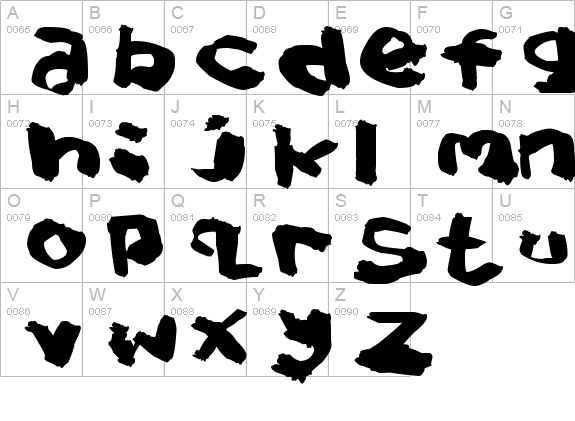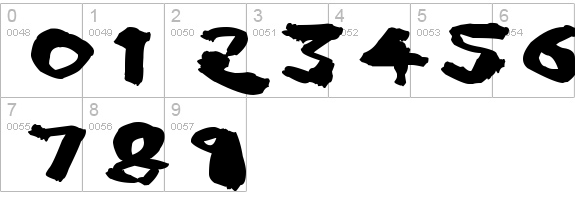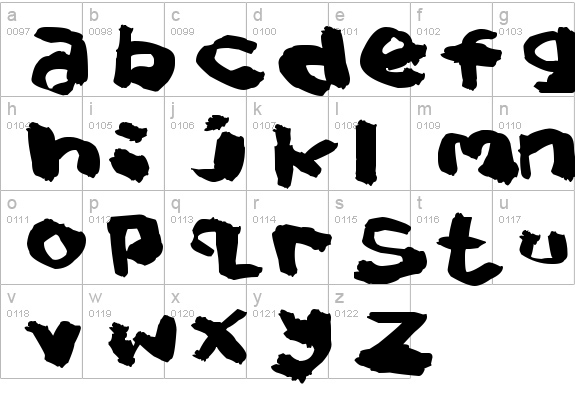
Splat Brush Font Details
Splat Brush is a free for personal use font in the Script > Brush category, designed by Darrell Flood. It has been downloaded 22 times and is available for Windows, Mac and Linux.
Splat Brush font is a dynamic and expressive typeface that captures the essence of artistic brush strokes. Its unique splattered design adds a playful and energetic touch to any project. With its bold and irregular letterforms, Splat Brush font is perfect for adding a handcrafted feel to your designs. Whether you're creating posters, flyers, or social media graphics, this font will make your text stand out in a fun and eye-catching way.